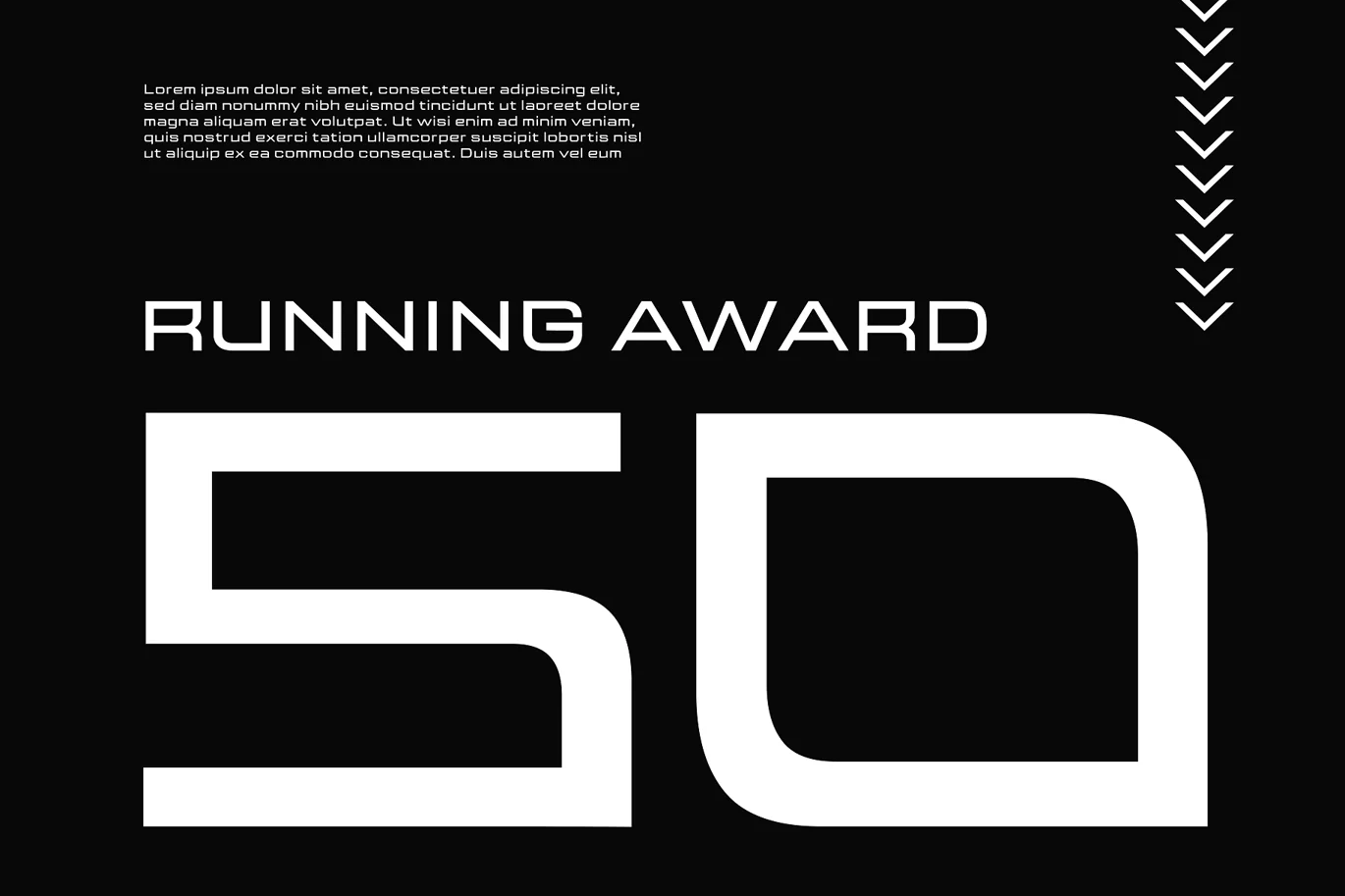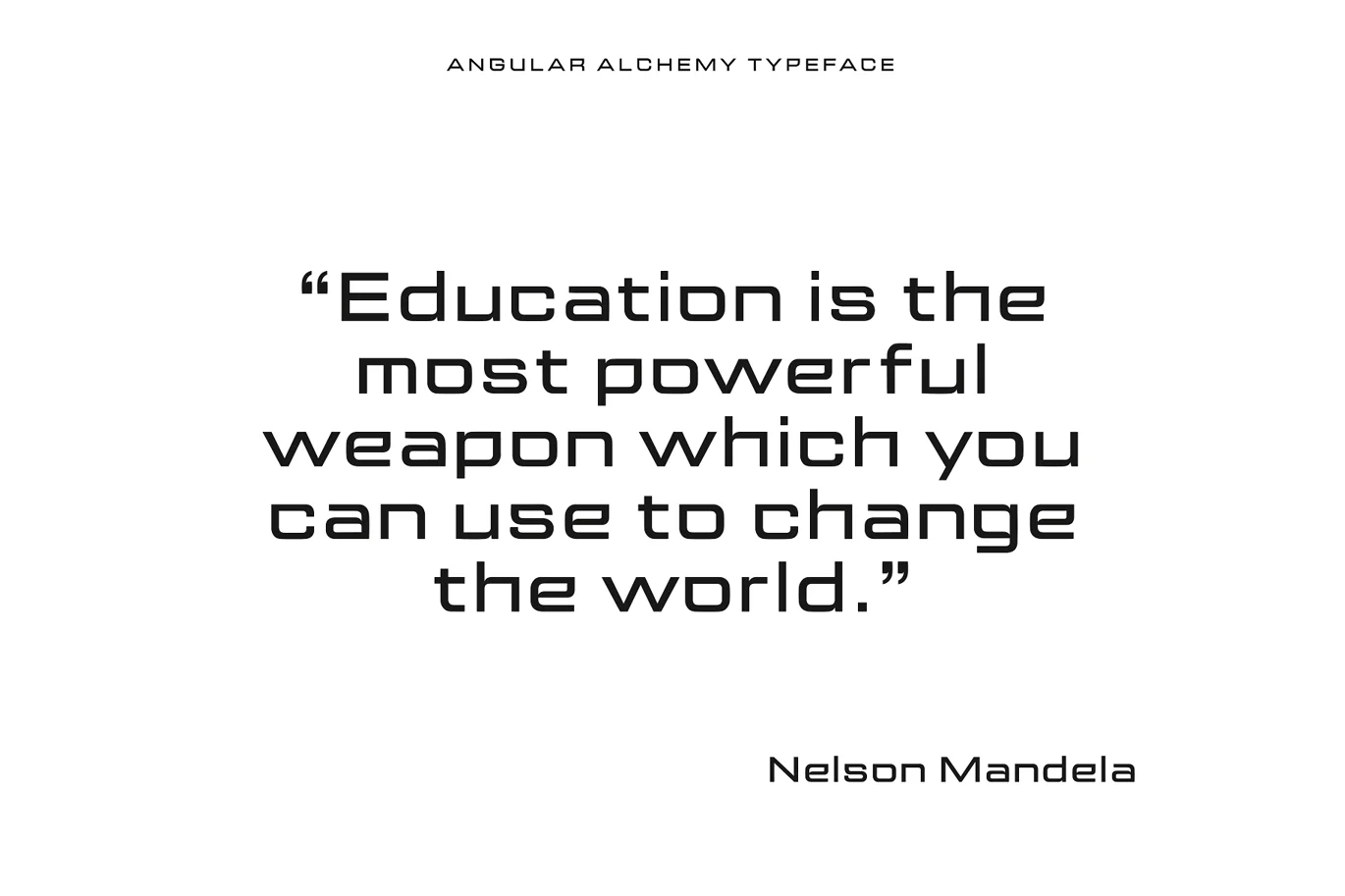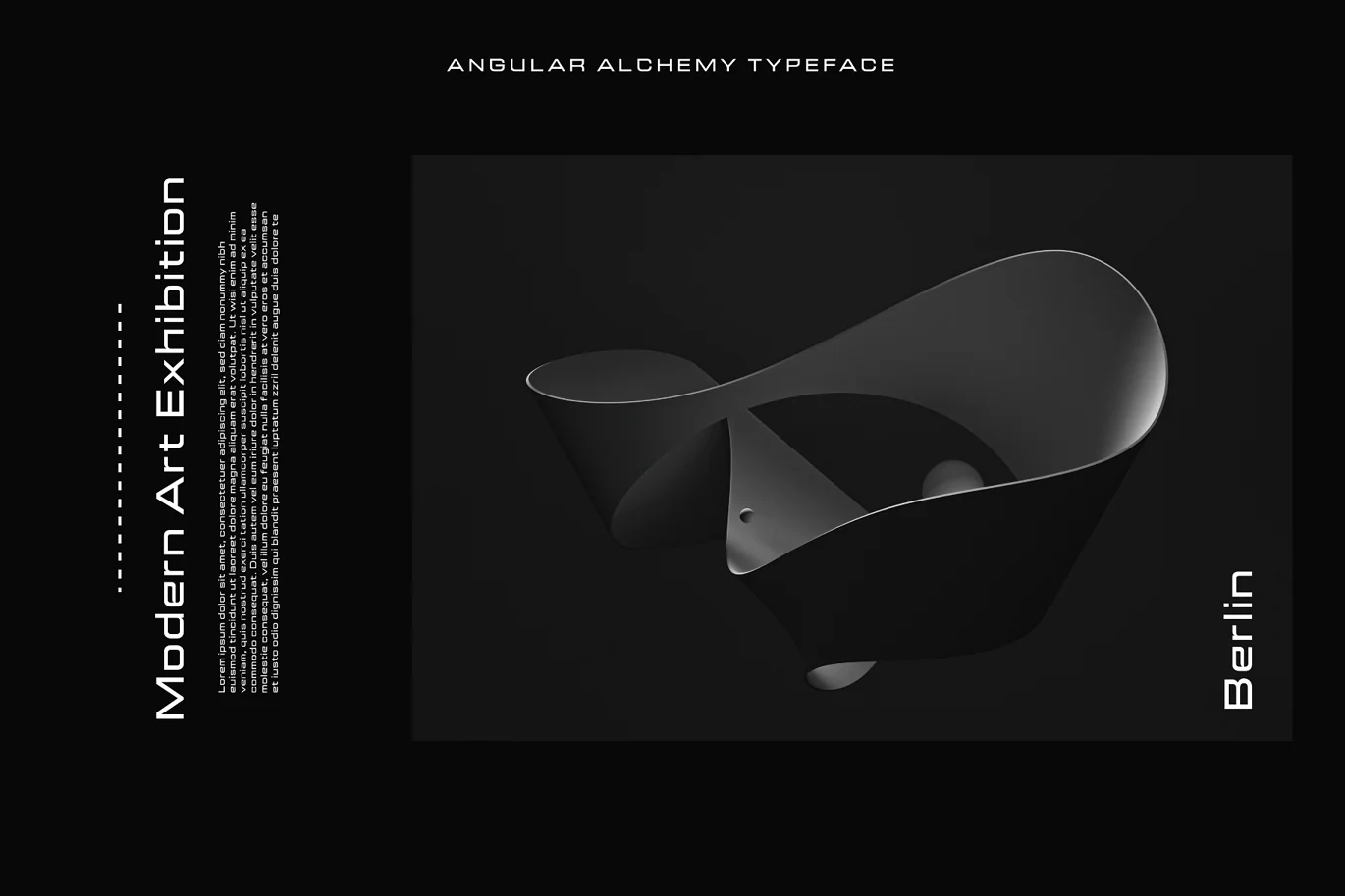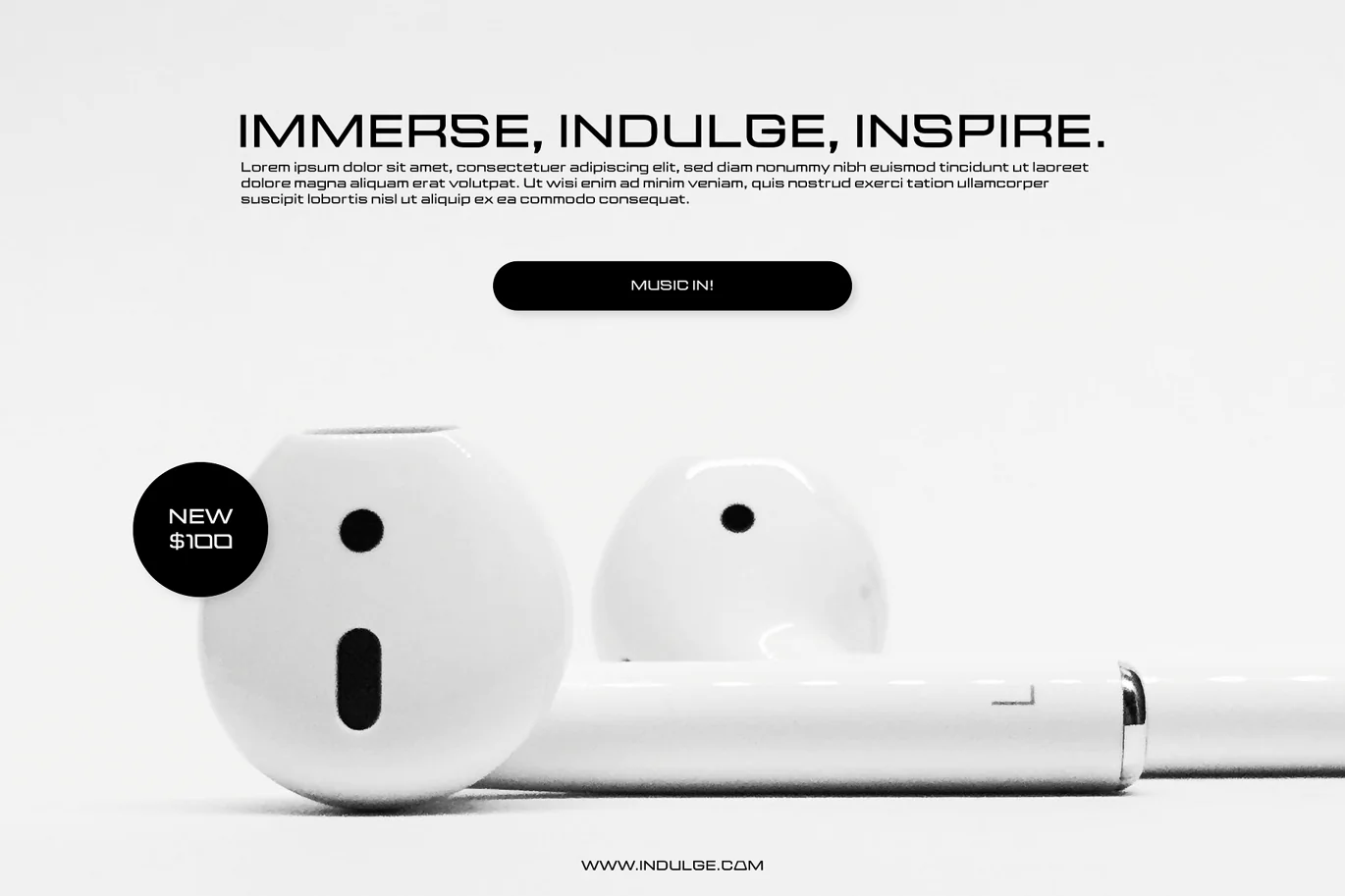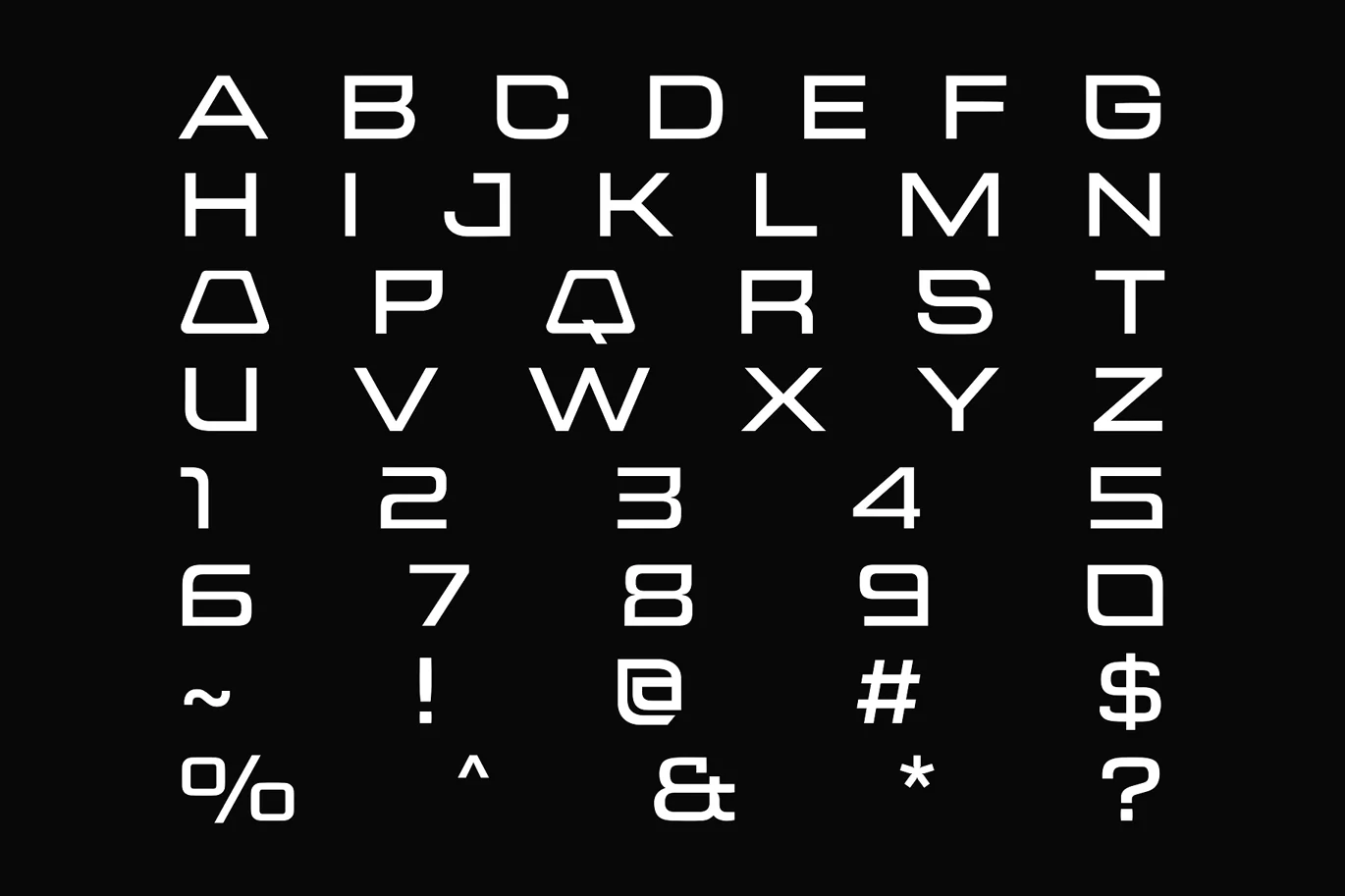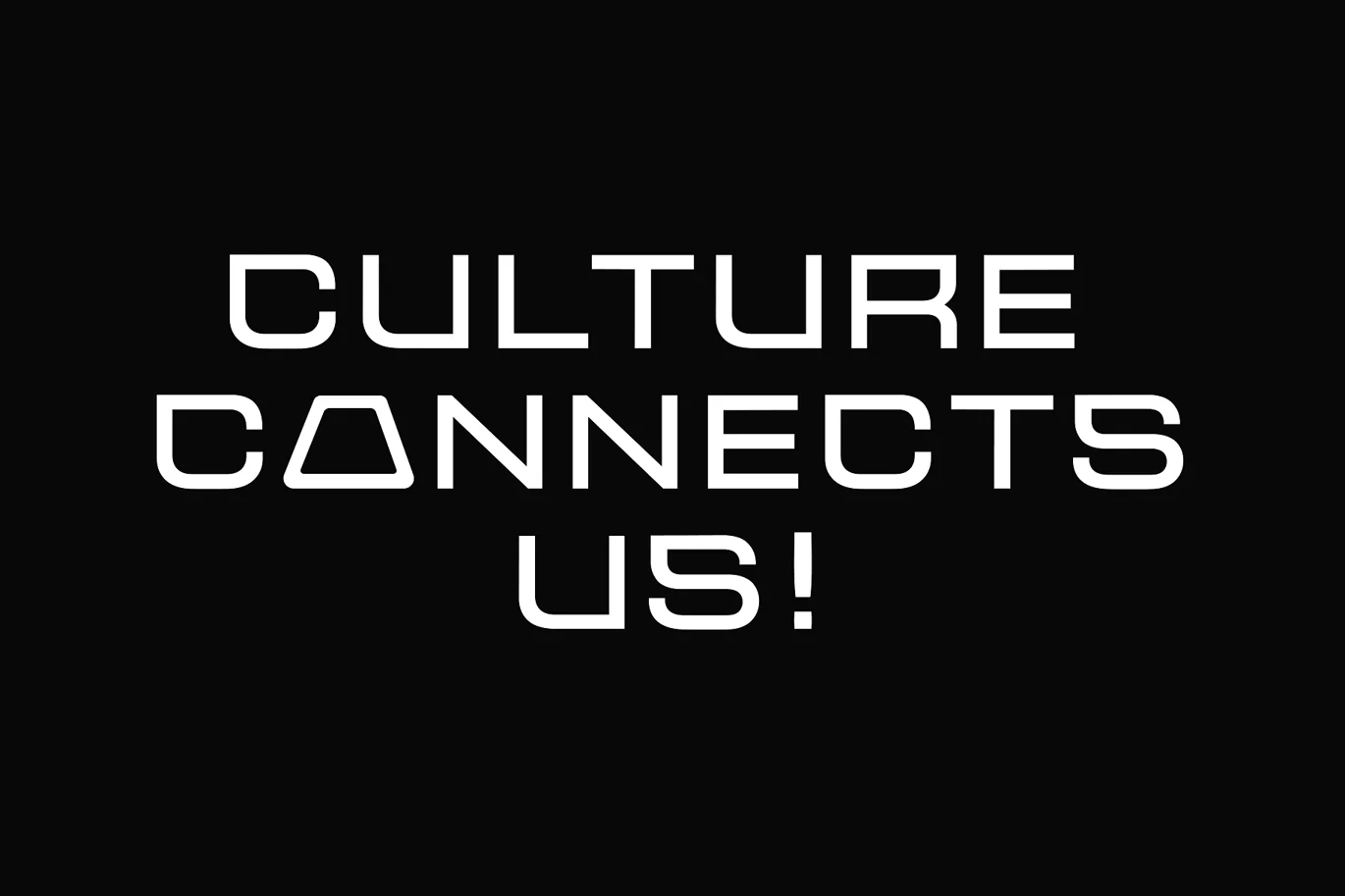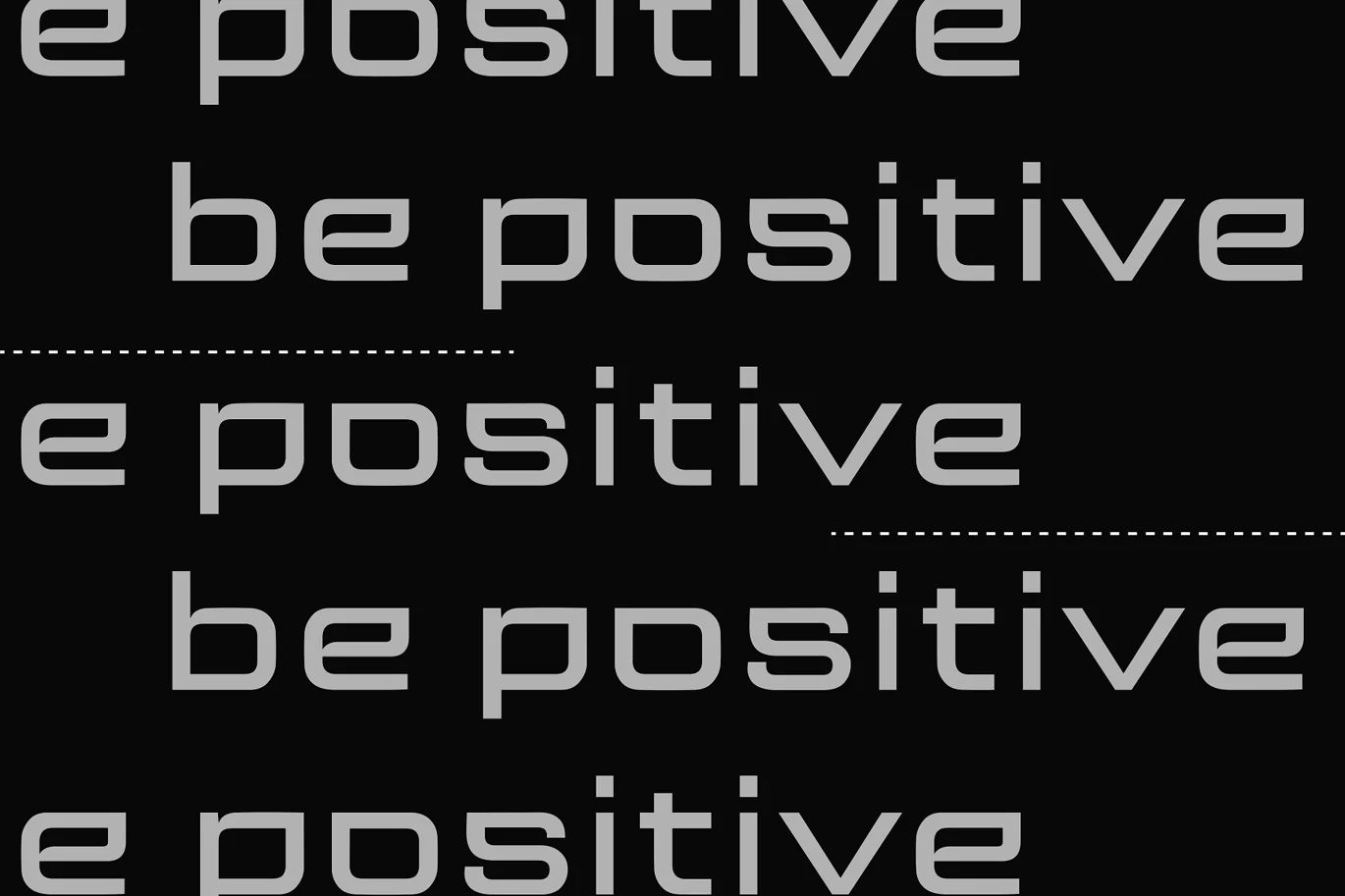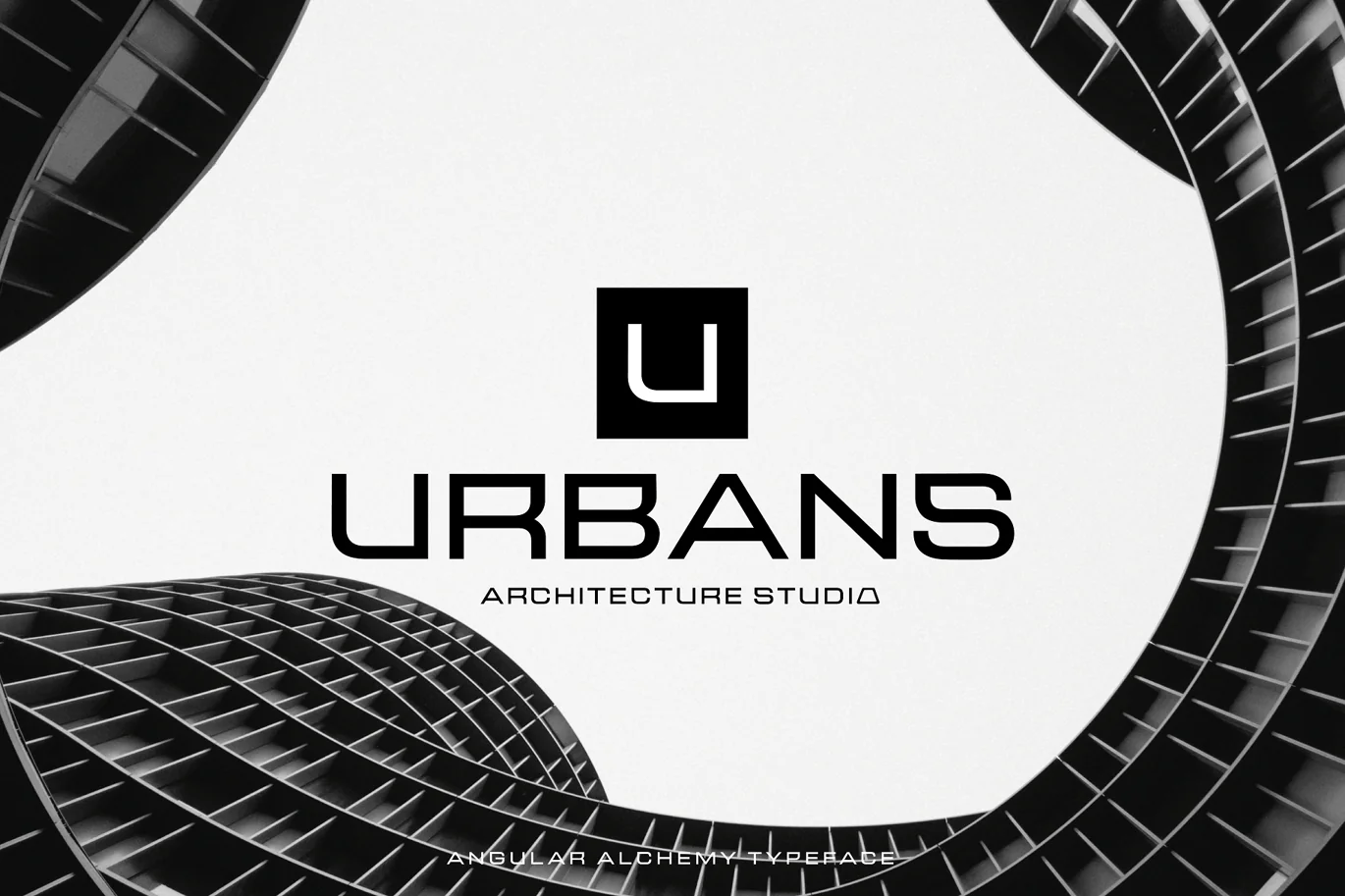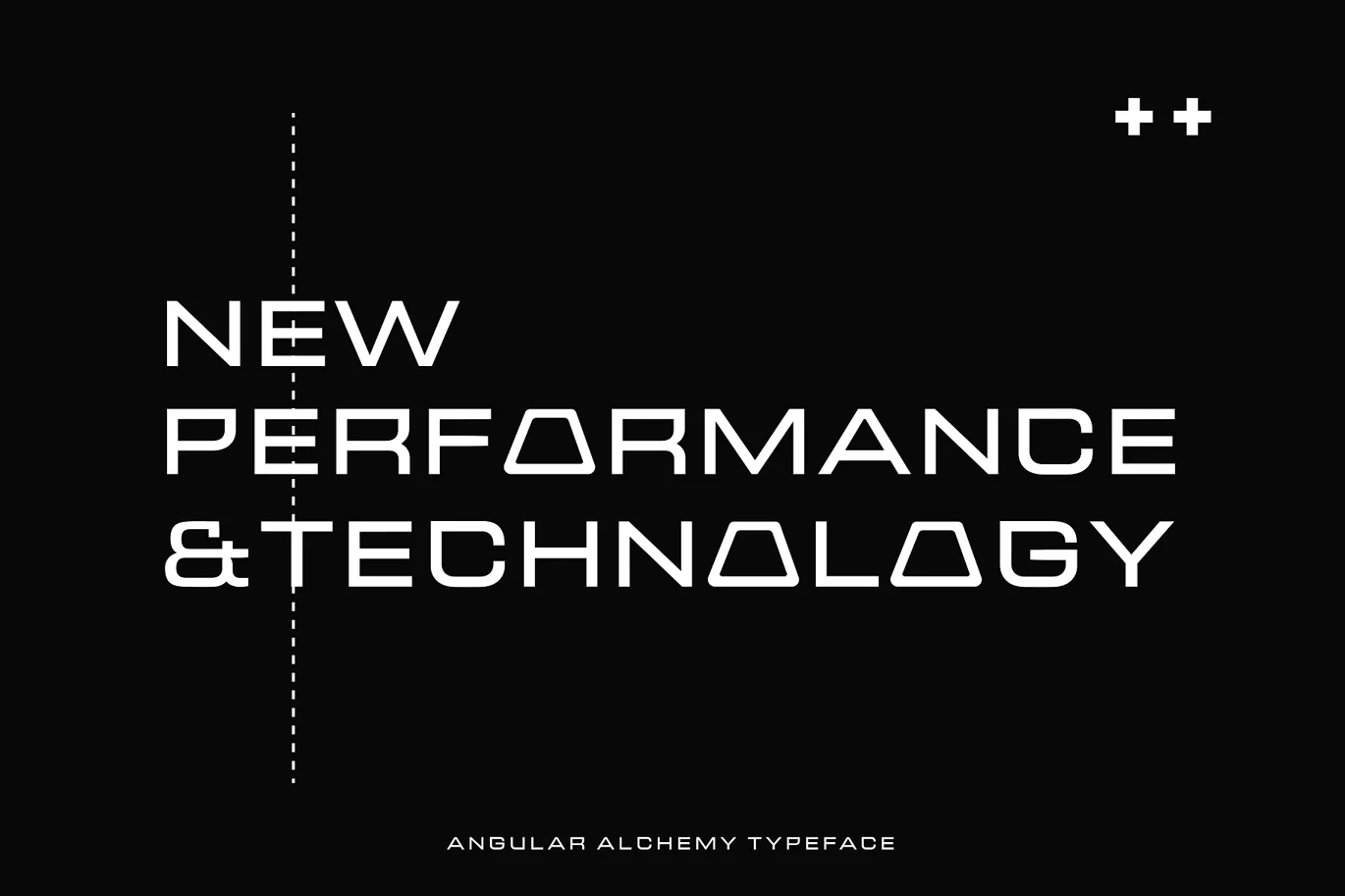
Angular Alchemy – Geometric Typeface
Introducing Angular Alchemy, a font that pushes the boundaries of modern design and brings a touch of enchantment to your projects.
This unique geometric typeface is a true alchemy of creativity and precision, combining sharp angles and clean lines to create a visually striking composition. With its contemporary appeal and captivating charm, Angular Alchemy captures attention and leaves a lasting impression.
Whether you’re crafting sleek logos, engaging headlines, or cutting-edge branding materials, this font adds a touch of sophistication and allure.
Elevate your designs with the magic of Angular Alchemy and witness the transformation as it infuses your work with a sense of modernity and intrigue.